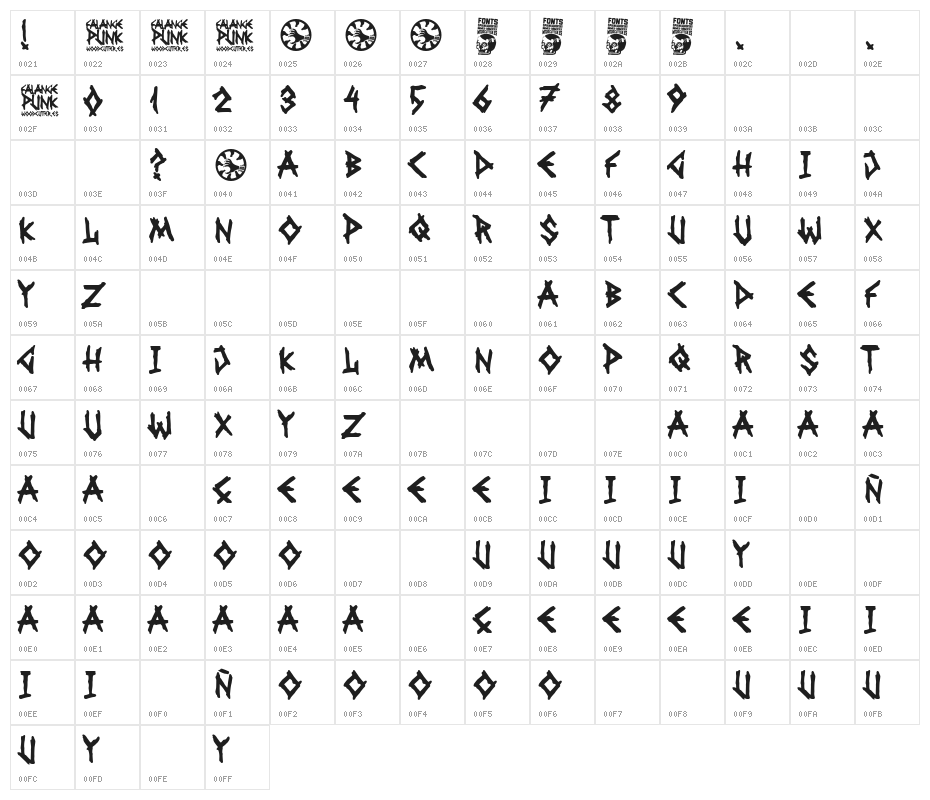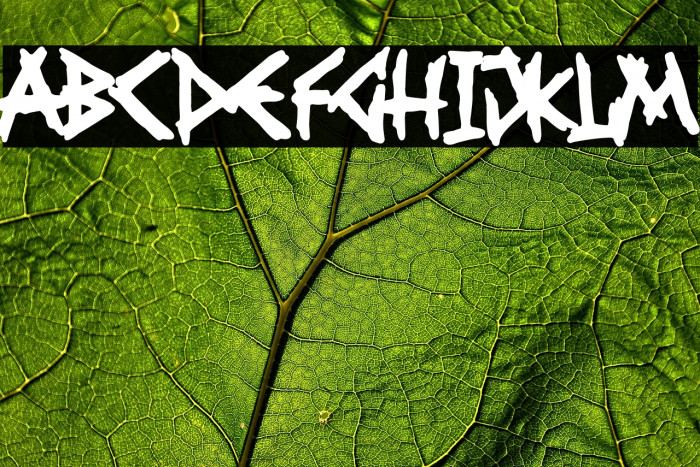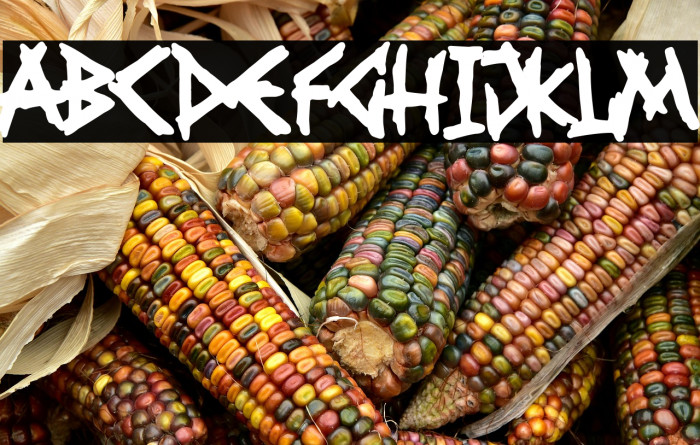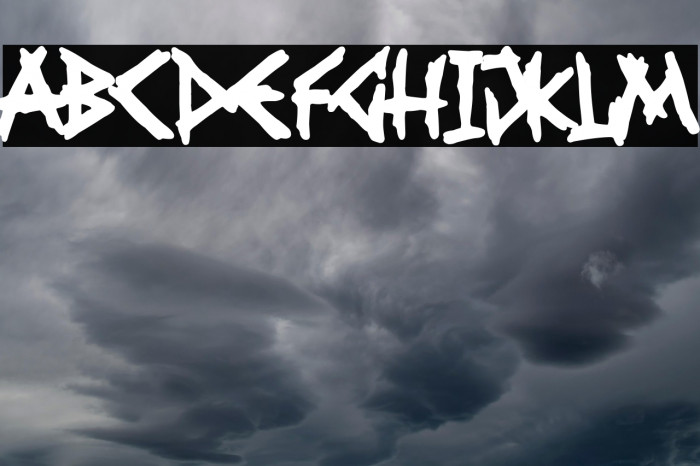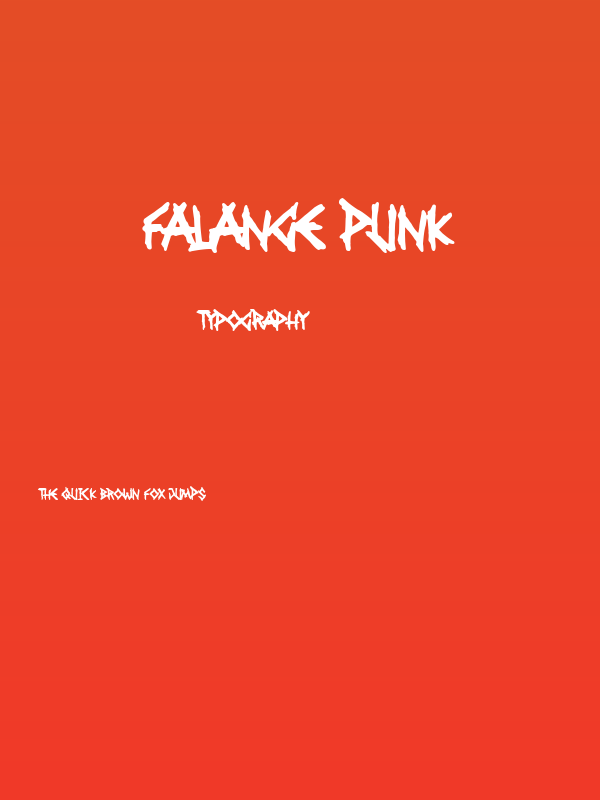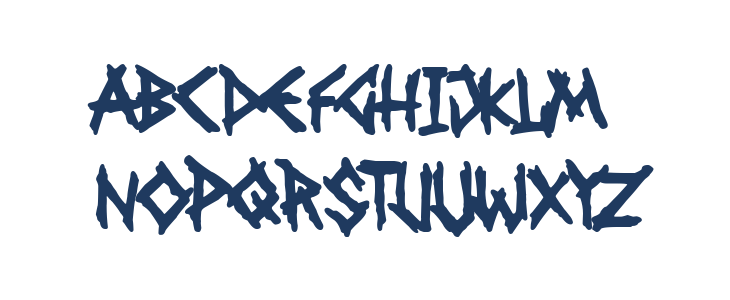
Falange Punk Font
Falange Punk Description
This font exudes a rebellious and edgy aesthetic, characterized by its jagged, irregular strokes and bold, graffiti-like appearance. The letters are highly stylized, with sharp angles and a rough texture that gives them a hand-drawn, punk-inspired feel. The uppercase and lowercase letters maintain a consistent style, with a dynamic and energetic look that captures attention. Numbers and special characters follow the same design principles, ensuring a cohesive visual identity. This font is perfect for projects that aim to convey a sense of nonconformity and boldness.
| Overall Style | Punk, Edgy, Rebellious |
| Use Case | Logos, Posters, Headlines |
| Proposed Projects | Ideal for music album covers, band posters, streetwear branding, and rebellious-themed graphic designs. |